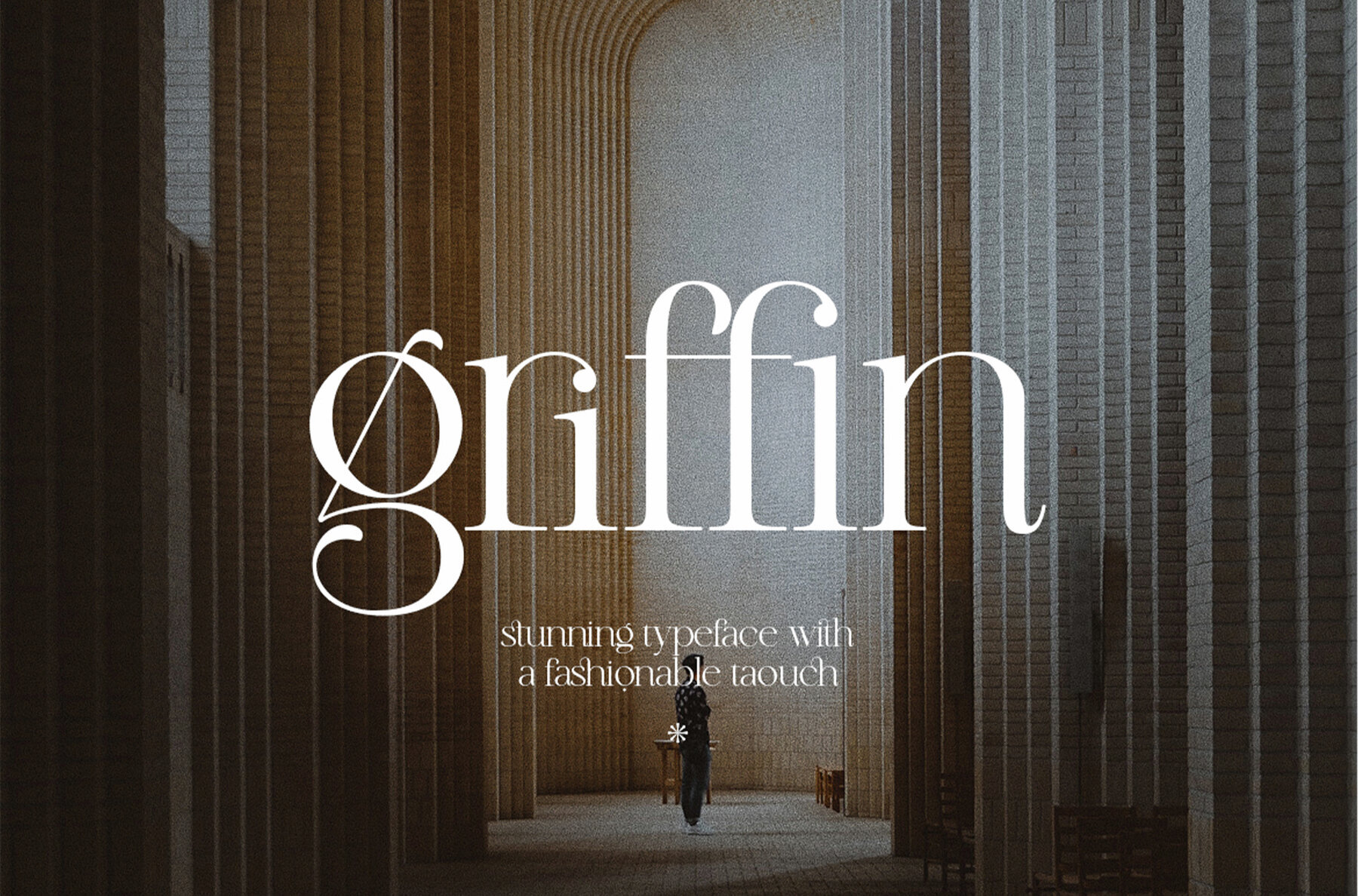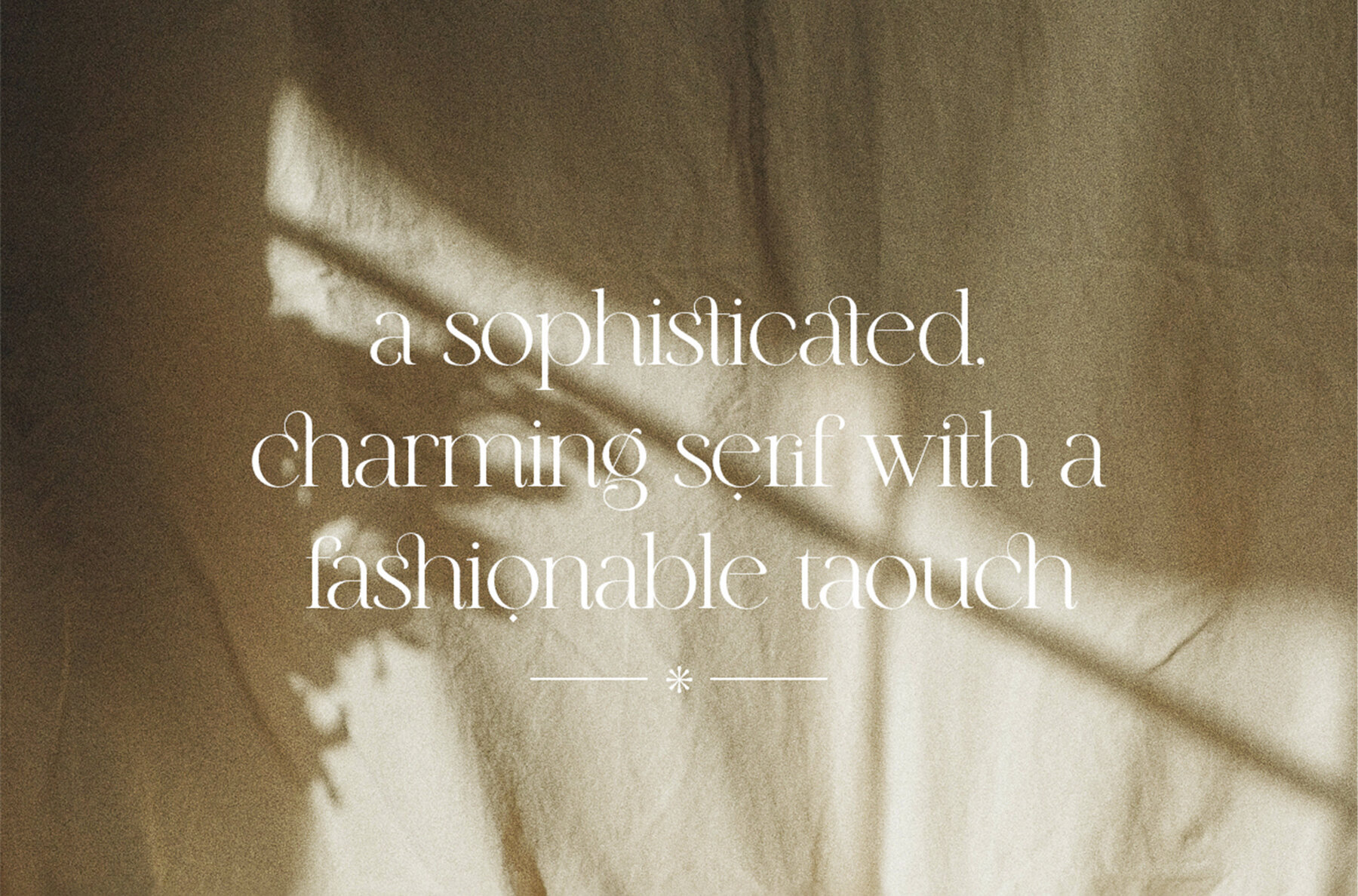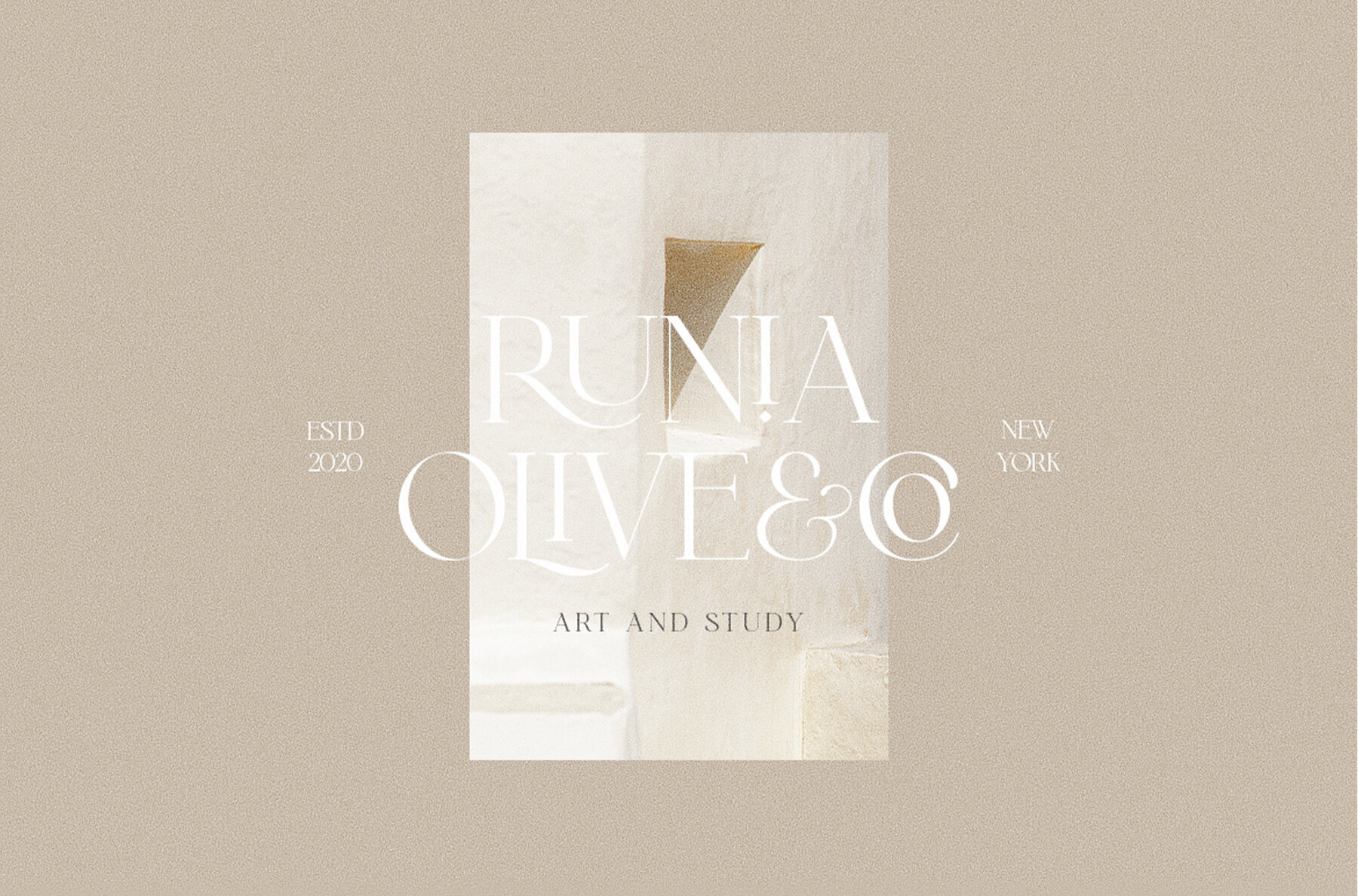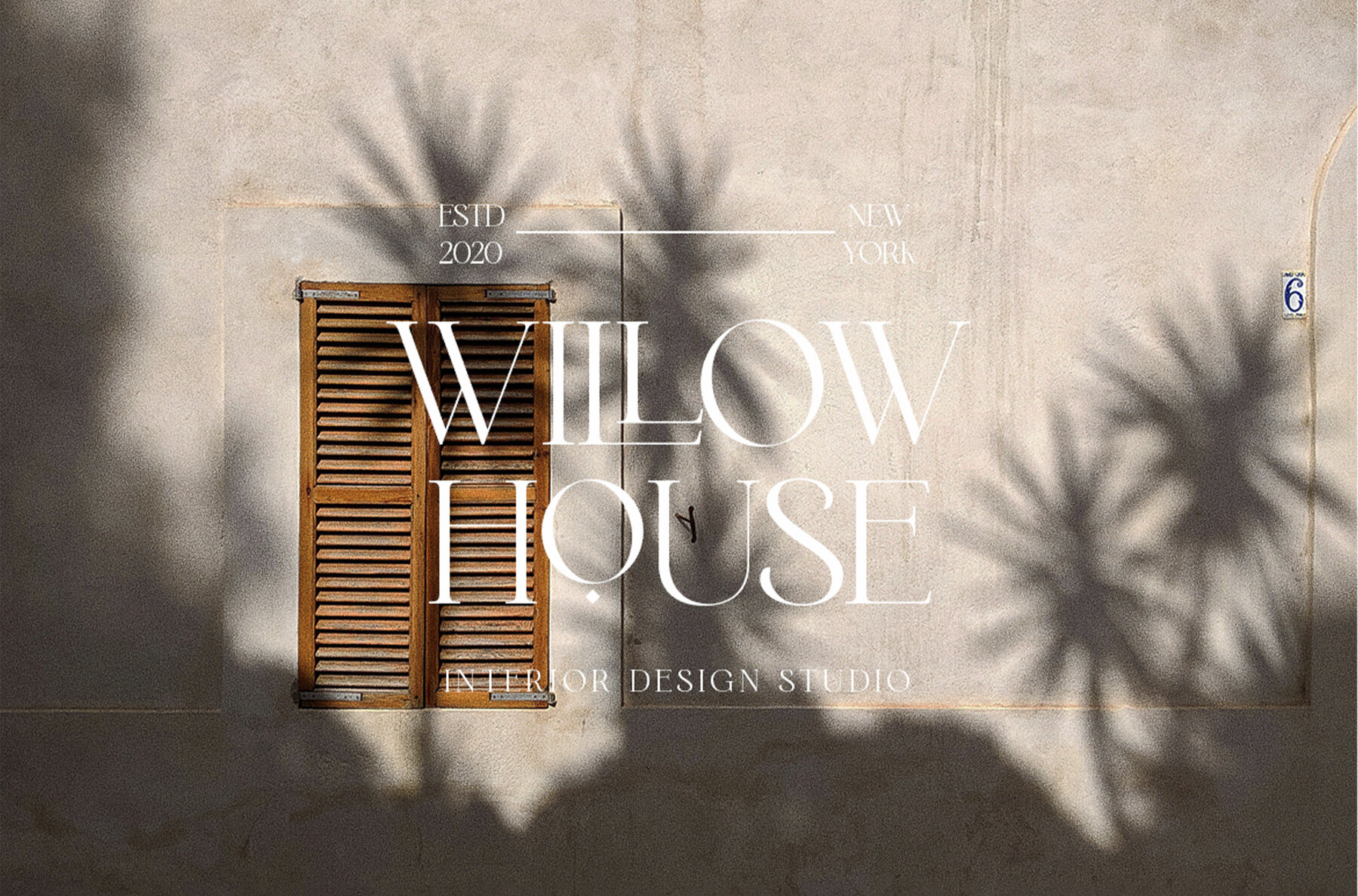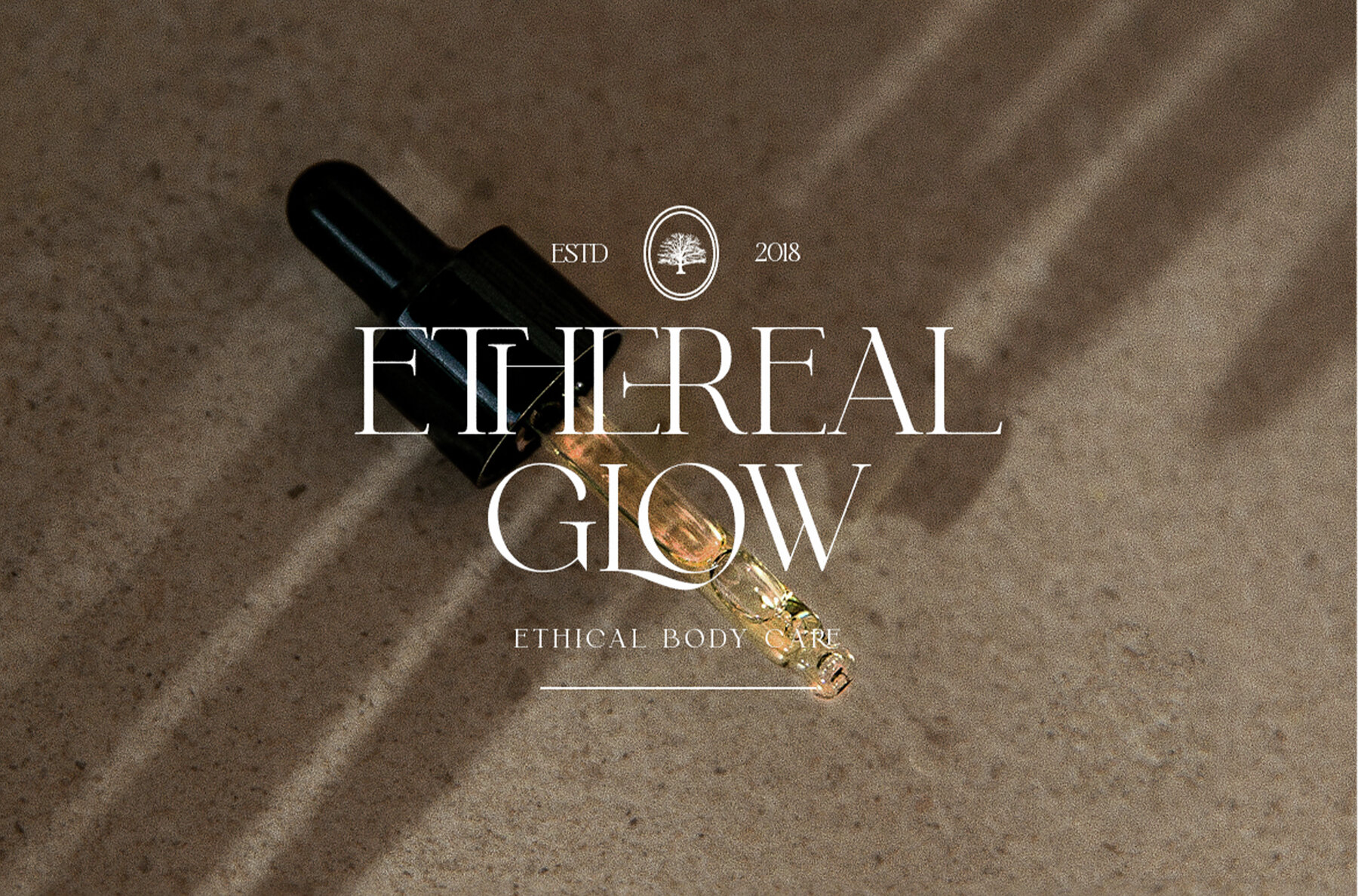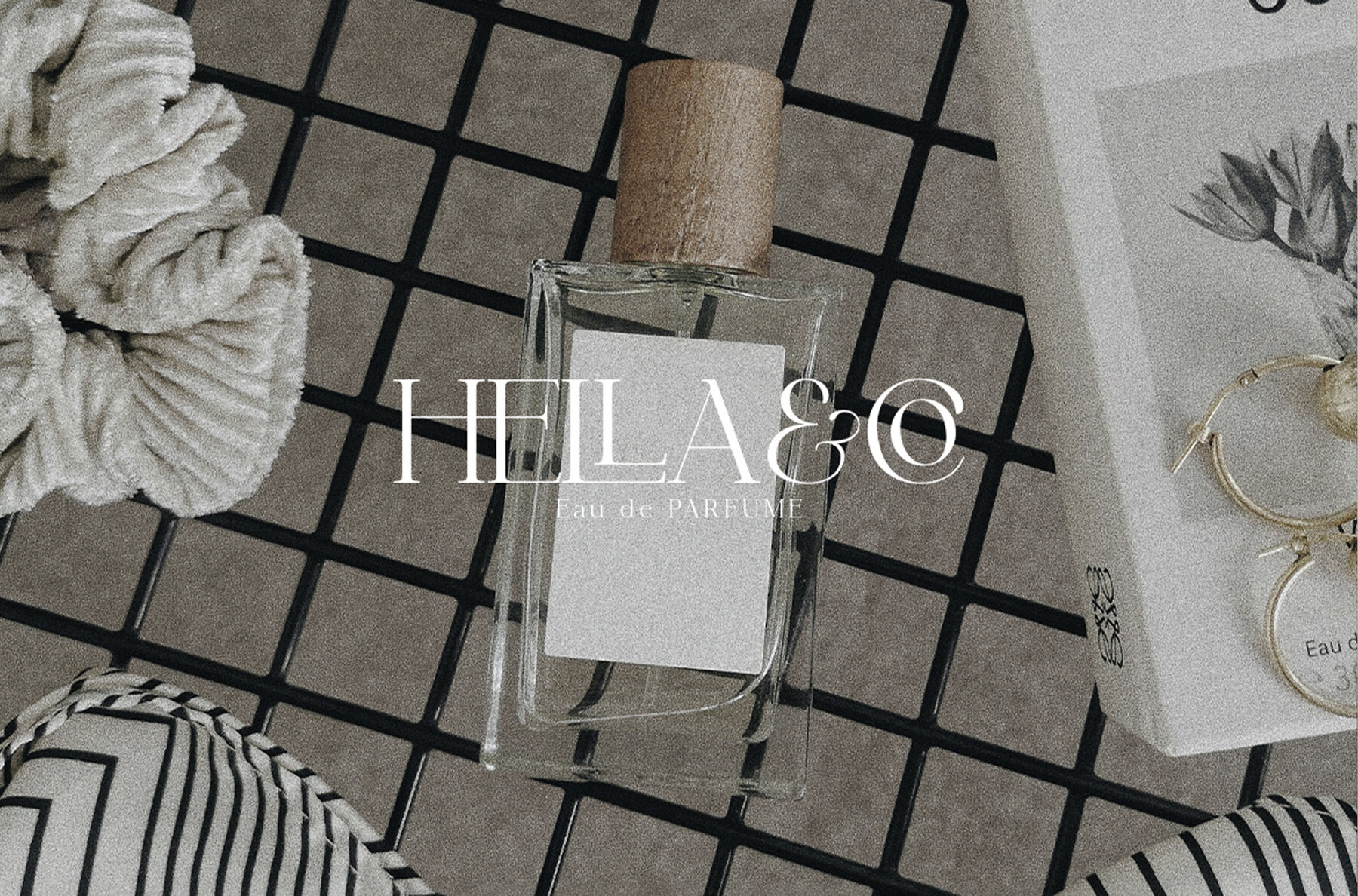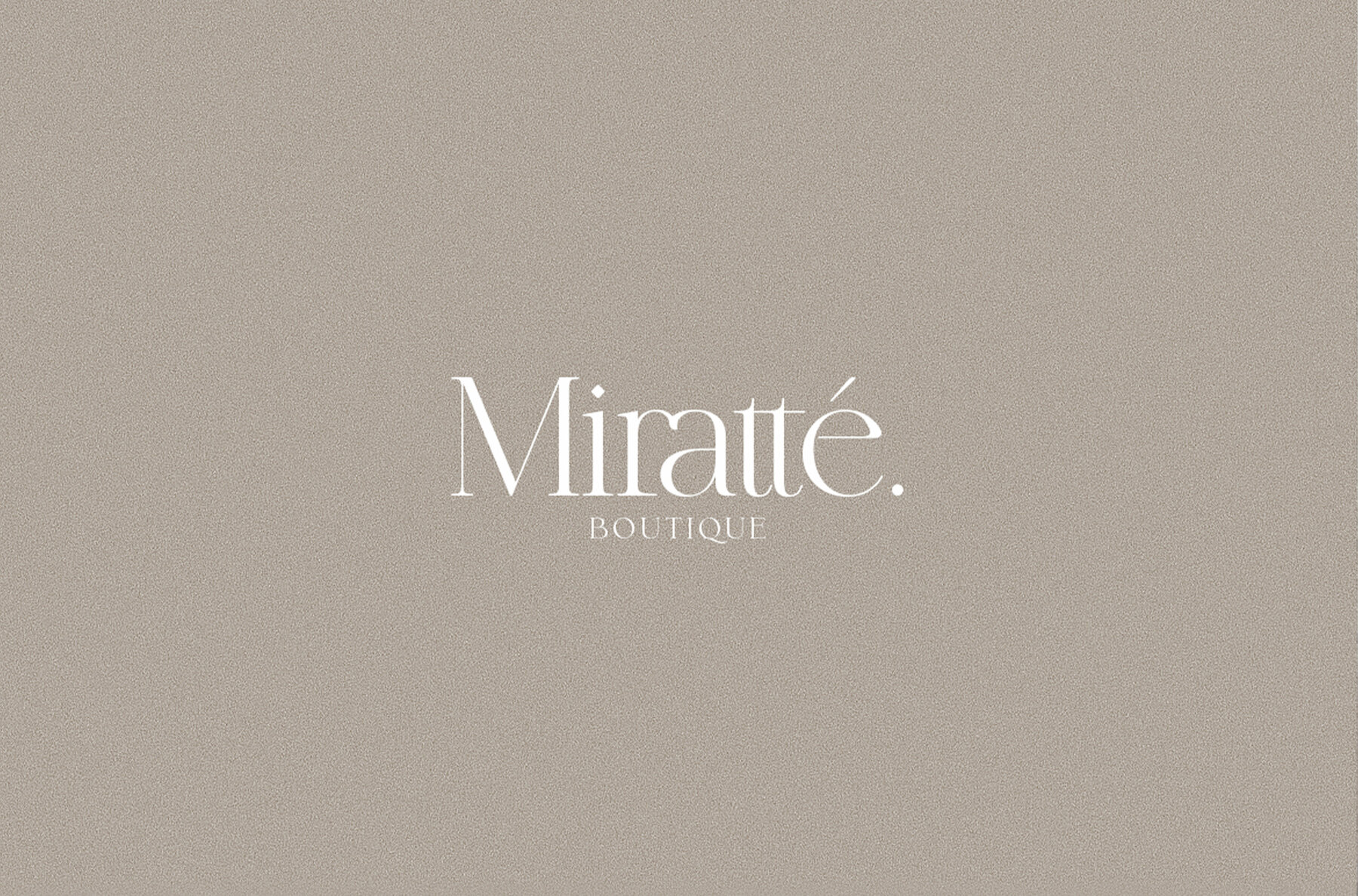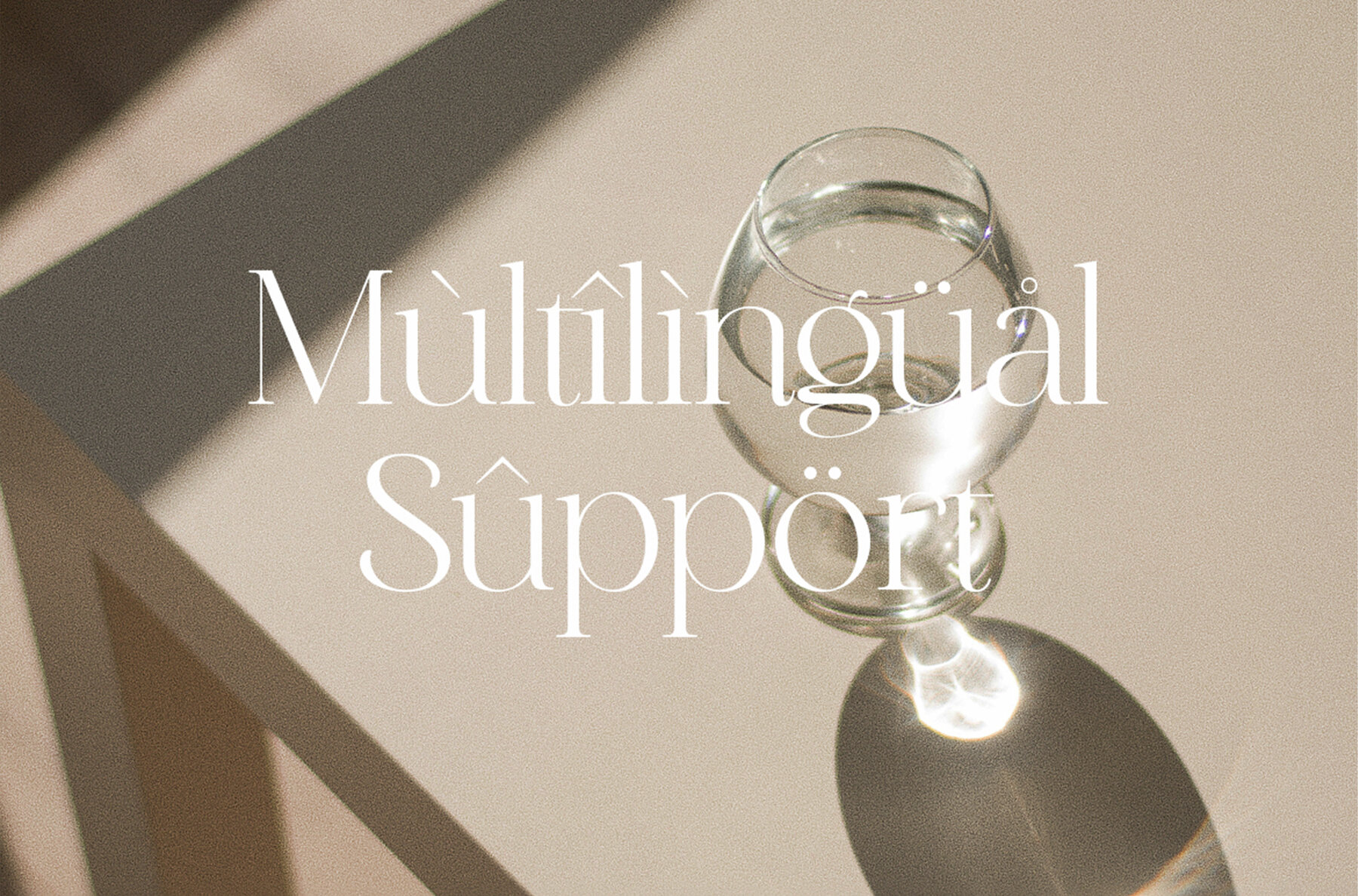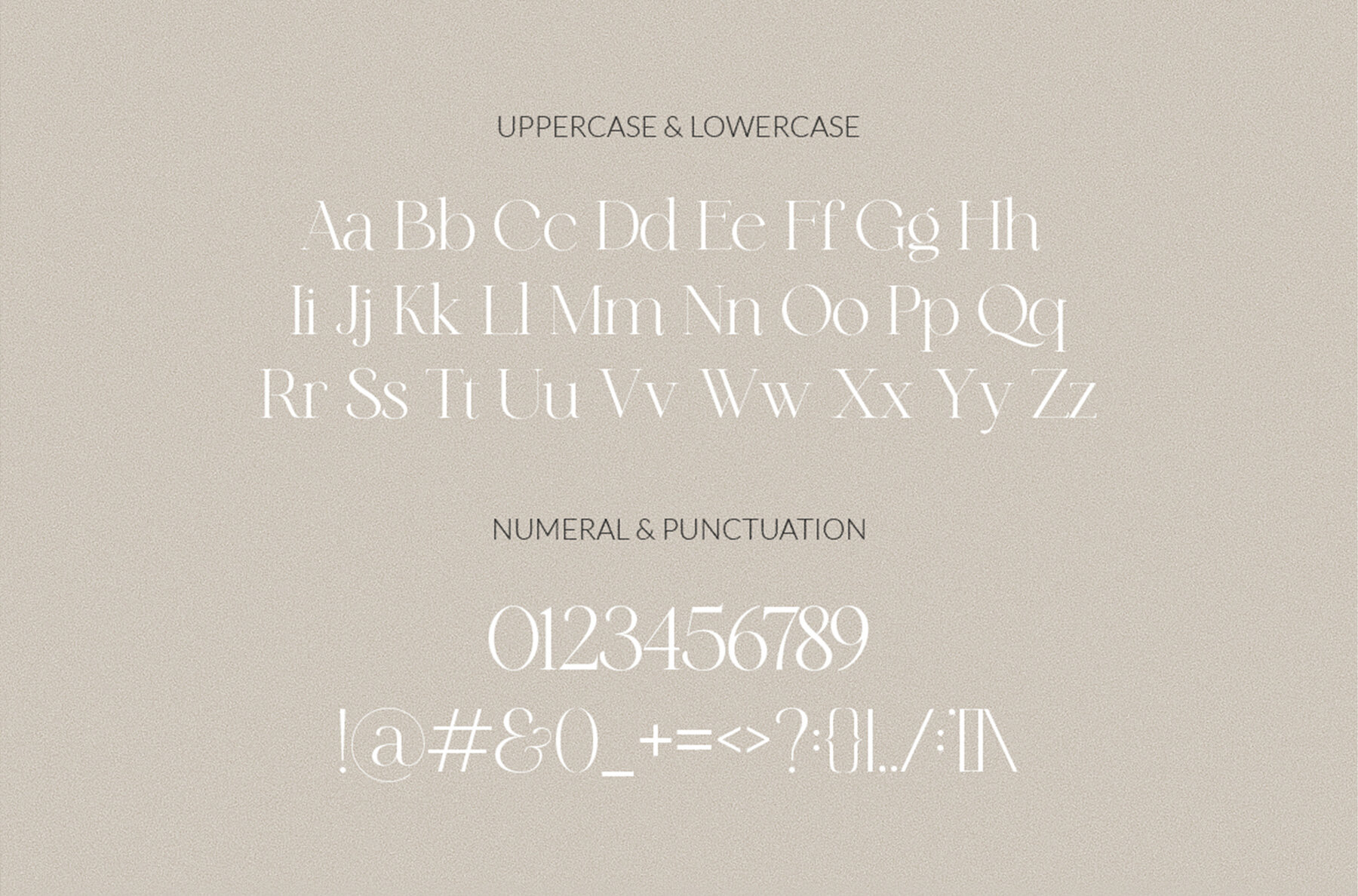
Griffin Font
Griffin Regular
Discover Griffin, a serif font that masterfully combines modern aesthetics with a touch of stylish allure. Perfect for making a striking statement, its clean and elegant letterforms position it as an exceptional choice for high-end branding, logos, and advertising. Embrace the luxurious feel with Griffin's stylish flourishes, adding a personal touch to wedding designs, invitations, product packaging, and stationery. This font isn't just a tool; it's a gateway to creating designs that stand out in their uniqueness and elegance.Griffin: An Elegant Serif Font